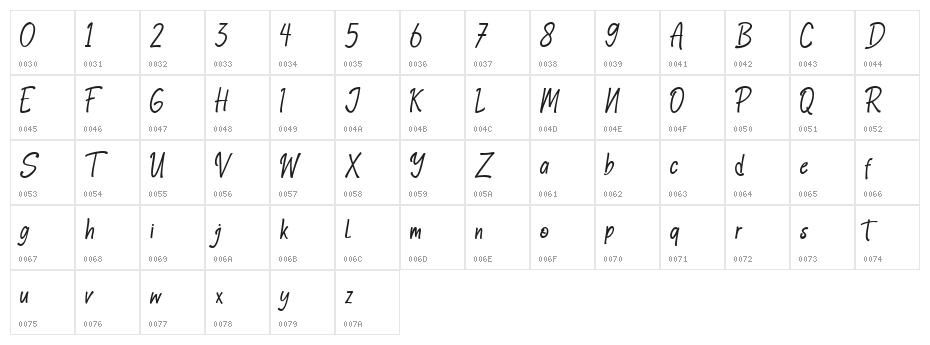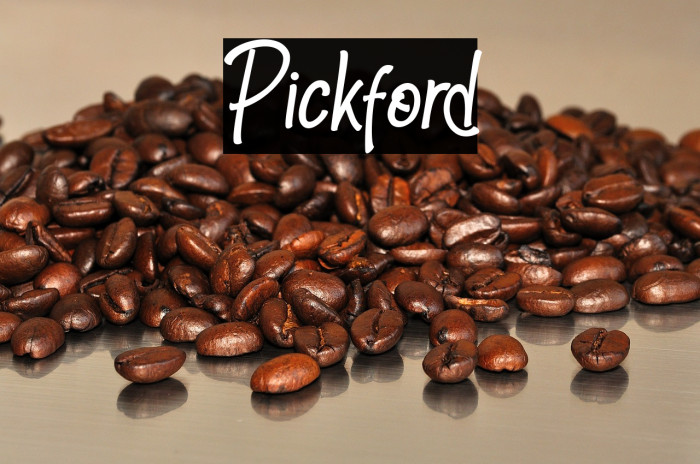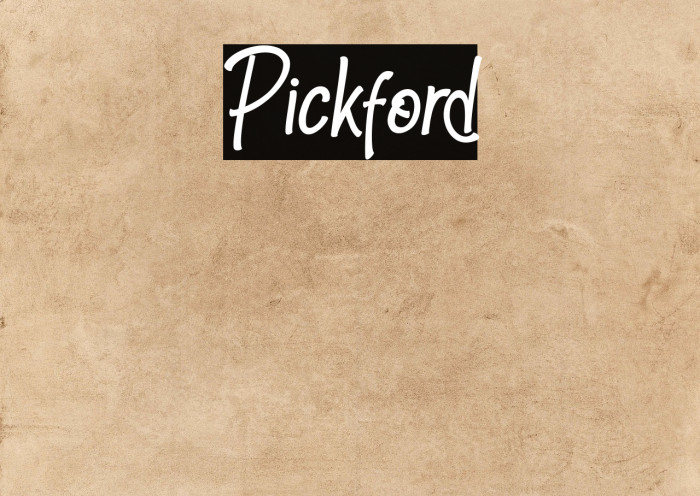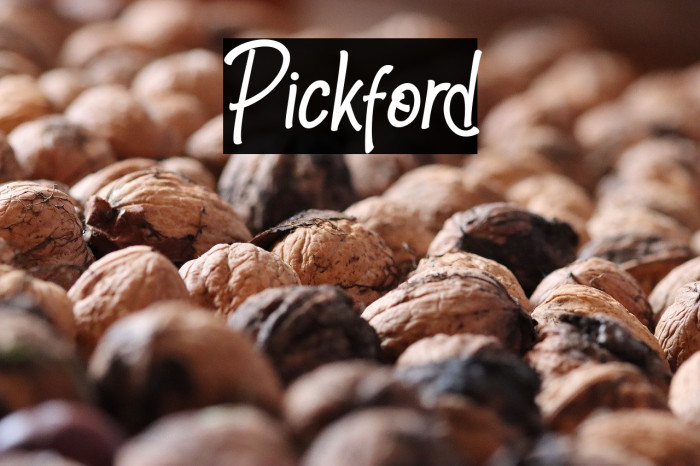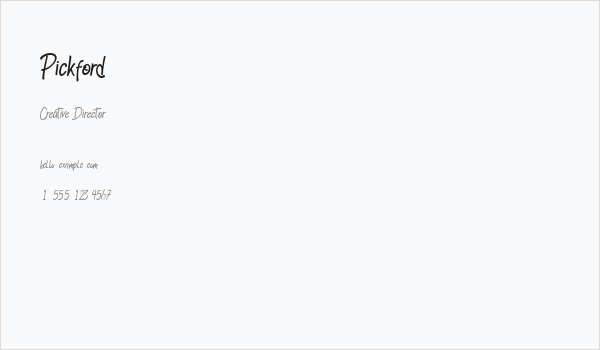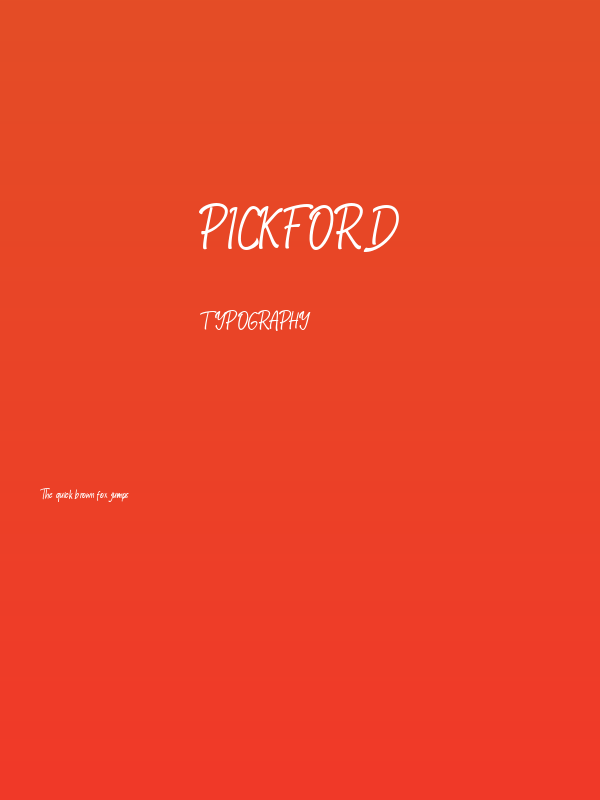
Pickford Font
Pickford Description
This font features a handwritten, cursive style with a smooth and flowing appearance. The characters are slightly slanted, giving it a dynamic and lively feel. The strokes are consistent in thickness, providing a medium contrast that enhances readability while maintaining an elegant look. The uppercase letters are tall and slightly narrow, while the lowercase letters are more rounded and compact. The numerals are well-proportioned and align seamlessly with the overall style. Special characters are integrated smoothly, maintaining the font's cohesive aesthetic.